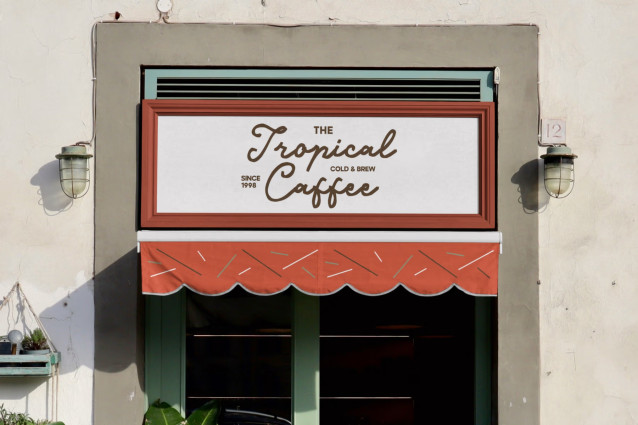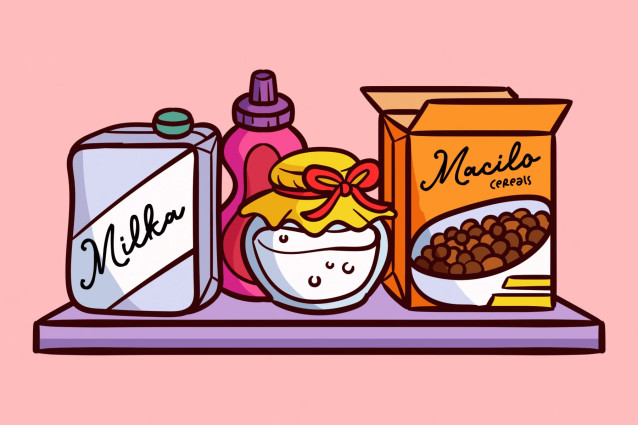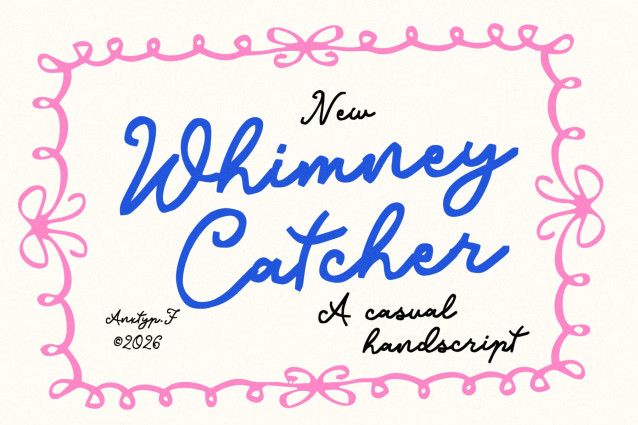
Whimney Catcher – Whimsical Script Font
Meet Whimney Catcher, a charming whimsical handwritten script font by Anxietype Foundry, created to bring a playful, expressive, and naturally handcrafted feel to your designs. Its flowing letterforms, organic strokes, and unique handwritten personality make it perfect for projects that need a warm, creative, and memorable visual identity.
Whimney Catcher is a versatile choice for logo design, branding, café and restaurant menus, food packaging, product labels, invitations, greeting cards, quotes, social media graphics, posters, stationery, apparel, and more.
Whether you’re creating a charming café identity, a playful food brand, a handmade product label, or a distinctive personal logo, Whimney Catcher adds an authentic handwritten touch while keeping your design stylish and eye-catching.